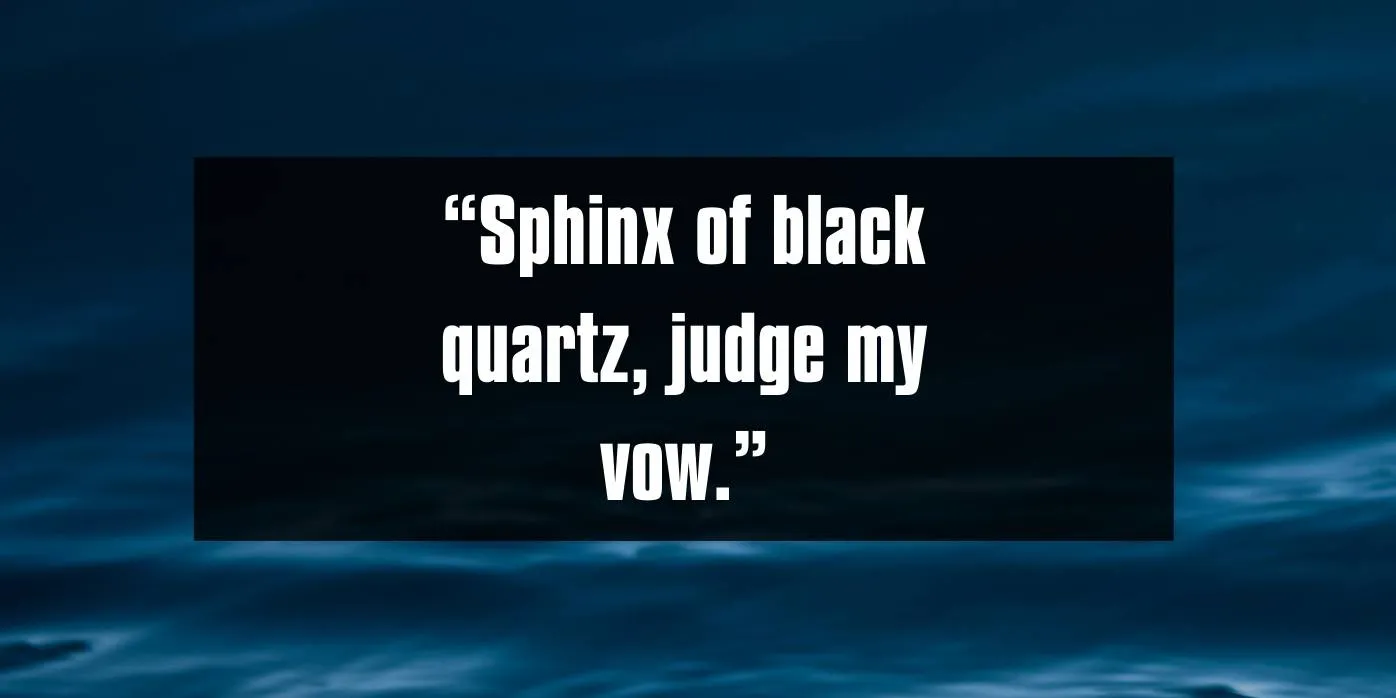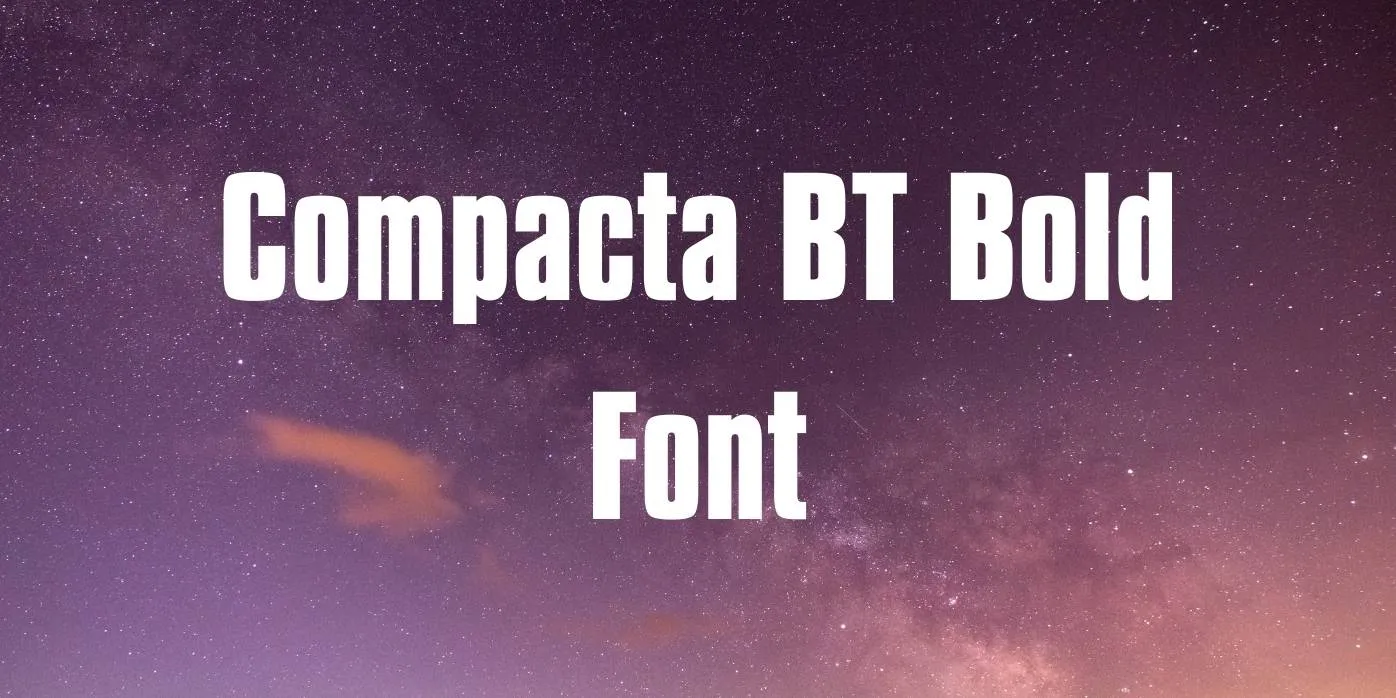
Compacta BT Bold Font
Here, we are going to introduce a new classic and marvelous typeface named Compacta BT Bold Font. This awesome typeface was developed by Bitstream Inc. This stunning typeface belongs to the Sans-Serif typeface. The main aim of the designer while making this font was to design a legible and readable sans serif typeface that can be used in different types of display devices.
This cute Font family has a wide variety of styles and weights. This font is available in four different styles namely, Regular, Italic, Bold, and Bold Italic. All of these styles have their own unique features and functions. For more designs, also similar Brandon Text Font.
This font family consists of a total of eight different fonts. It can also be used for advertising purposes. This sans serif typeface has gained a lot of popularity in the last few years. Its Bold styles make it popular.
If you are looking for a legible and readable sans serif typeface then Compacta BT Bold Font is the best option for your designs. This font will surely give your text a classic and timeless look. For various graphic designs, you need to use its generator tool.